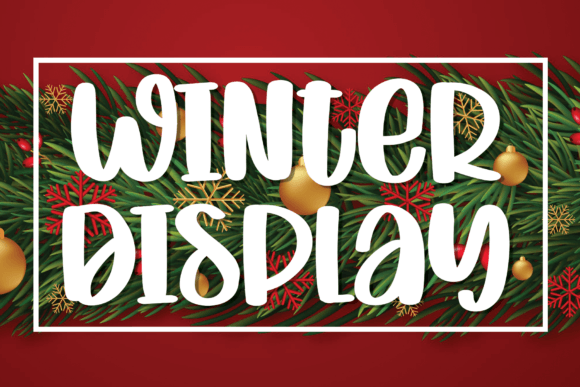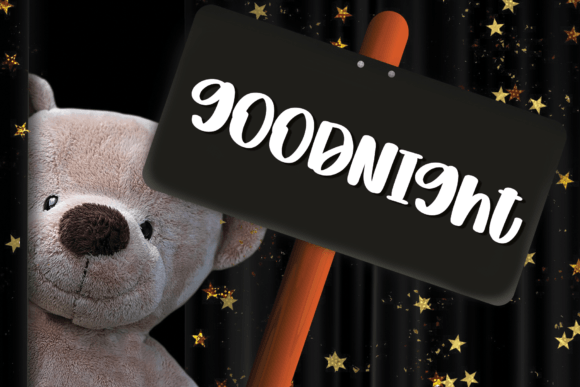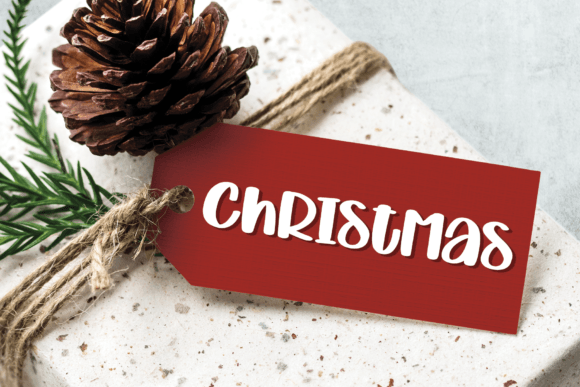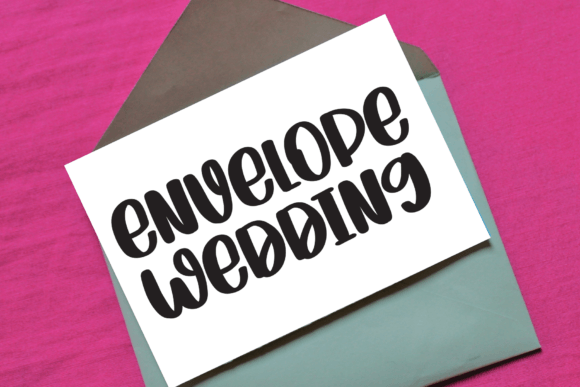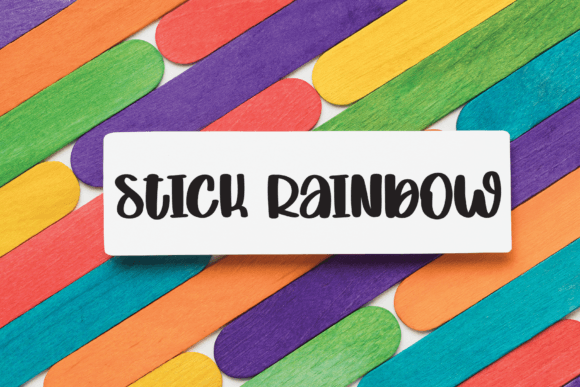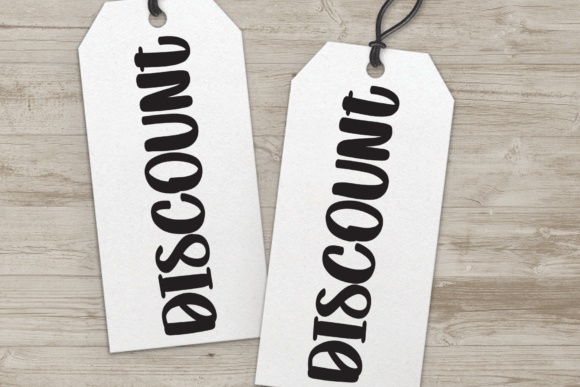
Winter Display Font
About Winter Display Font
Winter Display Font is a charming handwritten typeface full of joy and personality. Designed with a playful and welcoming style, this font is perfect for capturing the cozy and festive spirit of the winter season. Whether you’re creating something crafty or digital, this font brings your designs to life with a friendly tone.
Why Choose Winter Display Font?
The appeal of Winter Display Font lies in its natural, casual strokes and sweet character shapes. It feels lighthearted and approachable, making it ideal for both children’s projects and seasonal creations. While its cheerful tone makes it perfect for winter-themed designs, its versatility ensures it works well year-round.
Additionally, this font is easy to read while maintaining a hand-crafted feel. As a result, it adds a warm and personal touch to everything from headlines to packaging.
Great for a Variety of Projects
You can use Winter Display Font in many creative ways. Here are a few ideas to get started:
• Holiday cards and invitations
• Winter product packaging
• Classroom posters and worksheets
• Crafting labels and quotes
• Social media graphics and banners
• Personalized mugs, shirts, or gift tags
Thanks to its friendly appearance, this font helps convey warmth and joy, which is perfect for designs that aim to uplift and delight.
Key Features
• Handwritten style with a sweet, casual look
• Easy to read and versatile across different media
• Perfect for winter, holiday, and fun seasonal designs